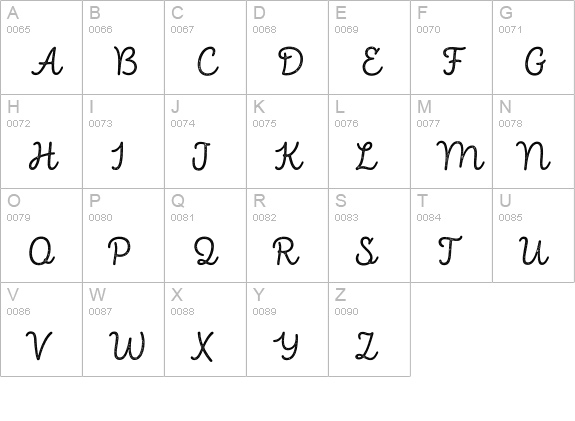
Intro Script R H2 Base Font Details
Introducing Intro Script R H2 Base font, a stunning and elegant typeface that will elevate your design projects to the next level. This font exudes sophistication and modernity, making it perfect for a wide range of applications, from branding to editorial design. With its stylish curves and sharp lines, Intro Script R H2 Base font is sure to make a statement and capture the attention of your audience. The best part? This exceptional font is available for free download at FontsMarket.com. So, whether you're a designer looking to add a touch of luxury to your creations or a business owner wanting to enhance your branding, Intro Script R H2 Base font is the perfect choice. Download it today and let your creativity shine with this exquisite typeface.